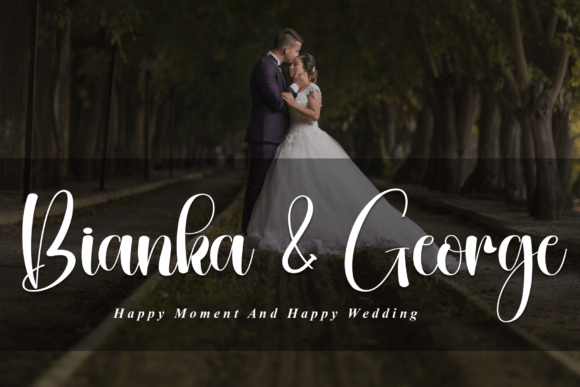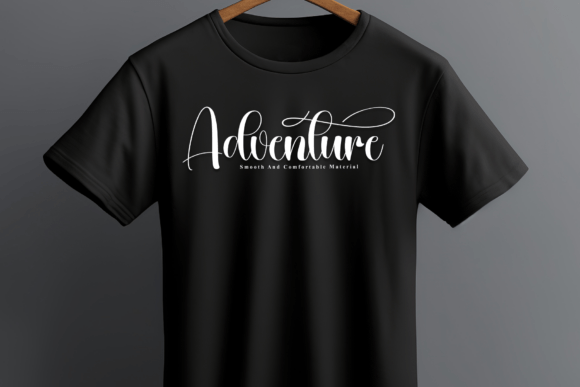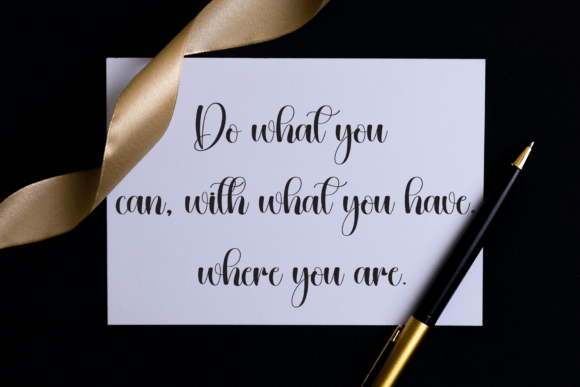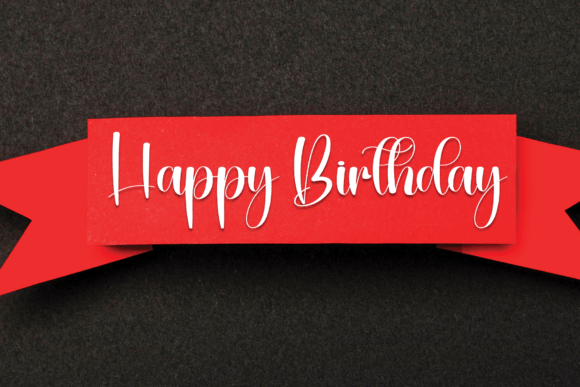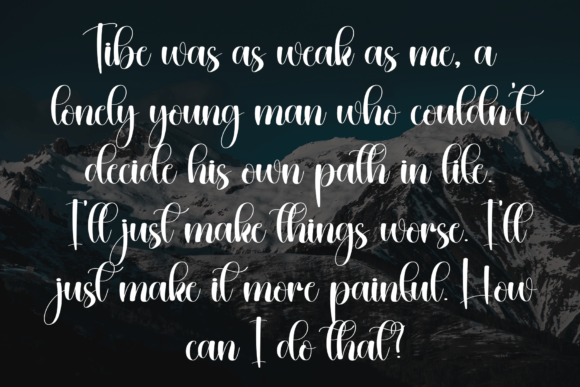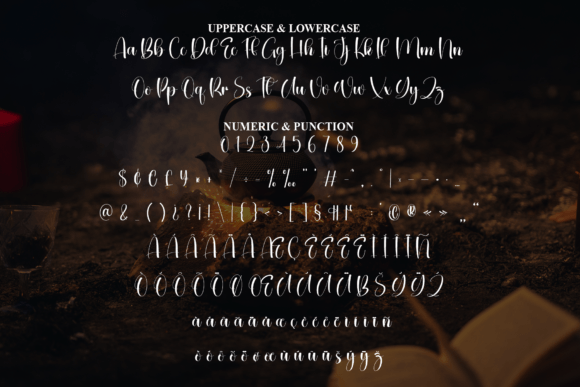
Introduction to Misterial Font Font
Fonts play a crucial role in design, and the Misterial Font font is a typeface that brings both character and versatility to any project. Whether you’re working on a branding project, a website, or a print design, the Misterial Font font offers a unique style that can elevate your work.
Misterial is a stylish handwritten script font with smooth, flowing lines.
It looks elegant and playful, perfect for creating logos, invitations, greeting cards, or any project that needs a personal touch Its natural and creative style makes your designs stand out.
Key Features of Misterial Font Font
Why Choose Misterial Font Font?
The Misterial Font font is more than just a typeface – it’s a design tool that helps you communicate your message with style and clarity. Its unique character set and versatile design make it suitable for a wide range of applications, from elegant invitations to bold headlines.
With its carefully crafted letterforms and balanced proportions, the Misterial Font font ensures readability and visual appeal across all mediums.
What makes Misterial Font font special?
The Misterial Font font stands out with its unique design, exceptional readability, and versatility across various design applications.